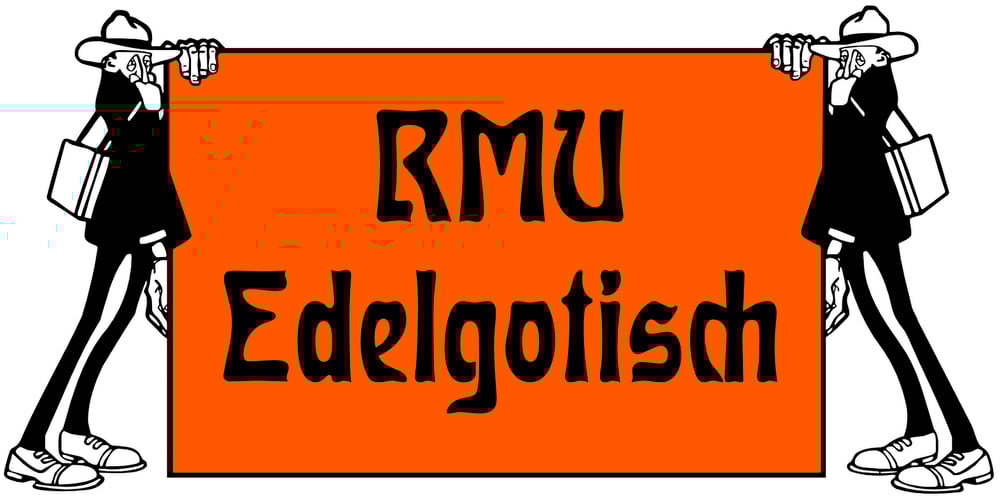
RMU Edelgotisch Font Family was designed by Ralph M. Unger, Hans Karl Gustav Möhring and published by RMU. RMU Edelgotisch contains 1 styles and family package options. RMU Edelgotisch is a carefully redrawn revival of the then trend-setting Schelter & Giesecke hot-metal original from the fin-de-siècle period. This fine vintage font elevates all your projects in an Art Nouveau style.To reach the historical long s, either type the integral sign [ ∫ ] or turn the round s into the long s by using the OT feature historical forms. It is also recommended to activate the OT feature discretionary ligatures.